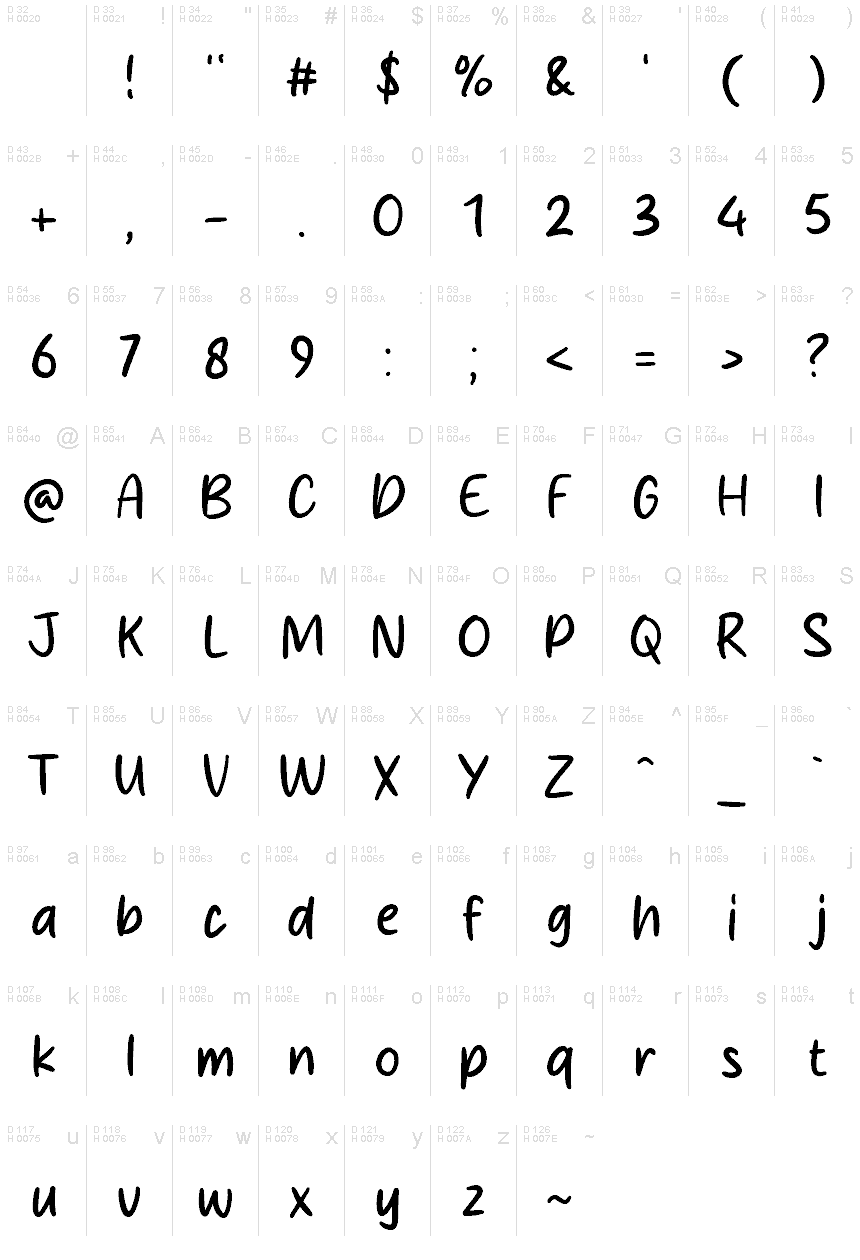
Smoothie Cream
Smoothie Cream font is a modern handwritten font created by MJType. Chunky, modern, and youthful, this friendly casual font is an all-purpose decorative tool that attracts attention and unites design elements. Clean smooth lines are the main advantage of the energetic typeface with a candid appearance.